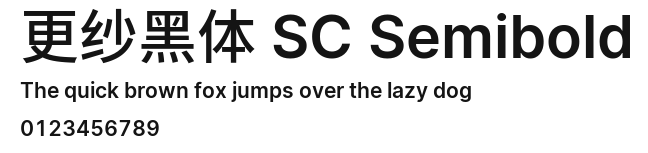
• Font Name: 更纱黑体 SC Semibold
• Font ID: 更纱黑体 SC Semibold
• Full Font Name: 更纱黑体 SC Semibold
• PostScript Name: Sarasa-Gothic-SC-Semibold
About 更纱黑体 SC Semibold.ttf
更纱黑体 SC Semibold.ttf is a modern, elegant sans-serif font designed for ultimate readability and visual harmony. Perfect for branding, headlines, web design, and print materials.